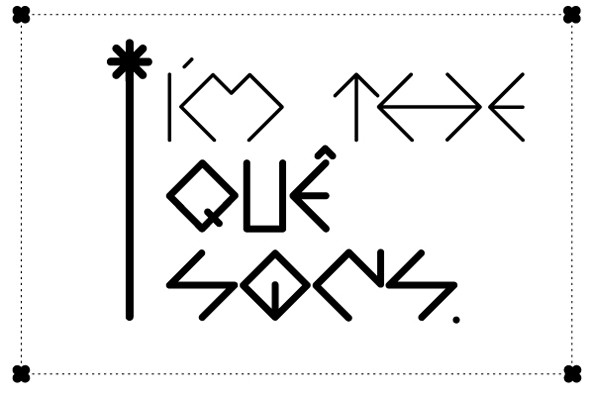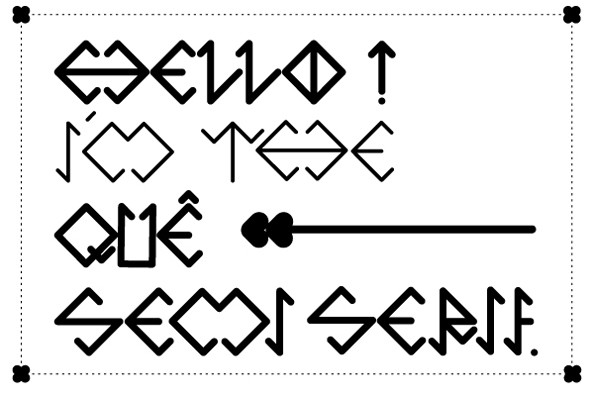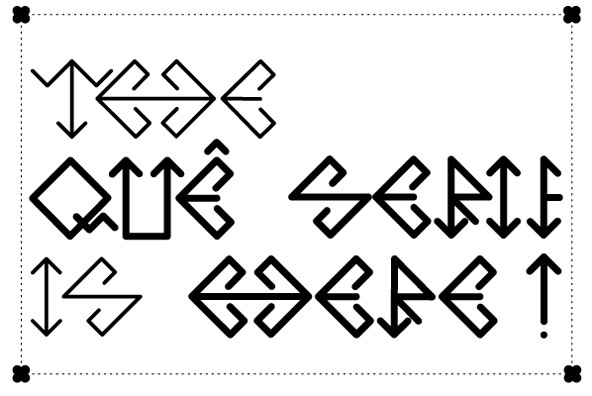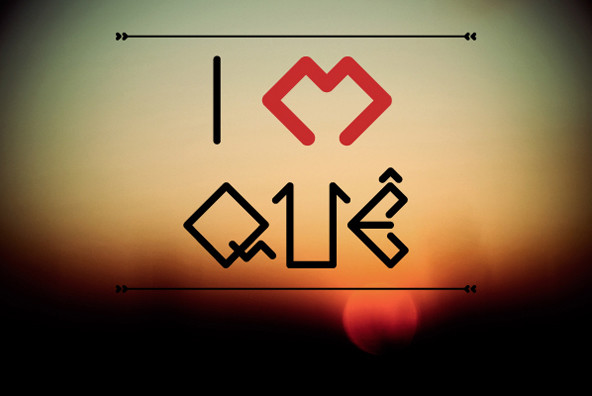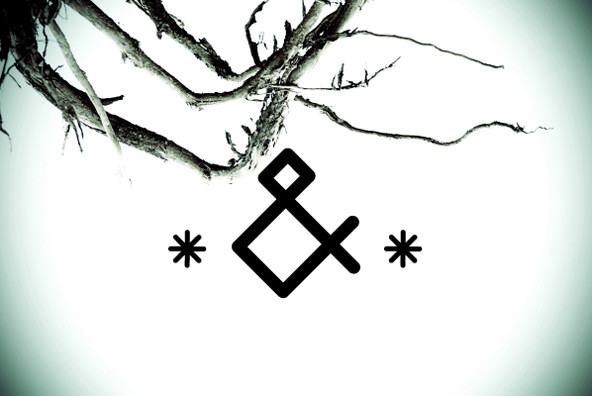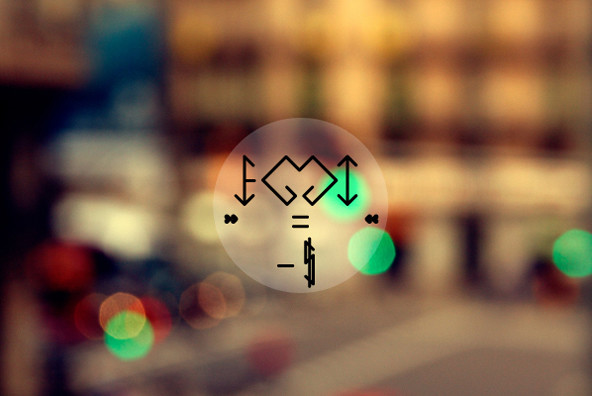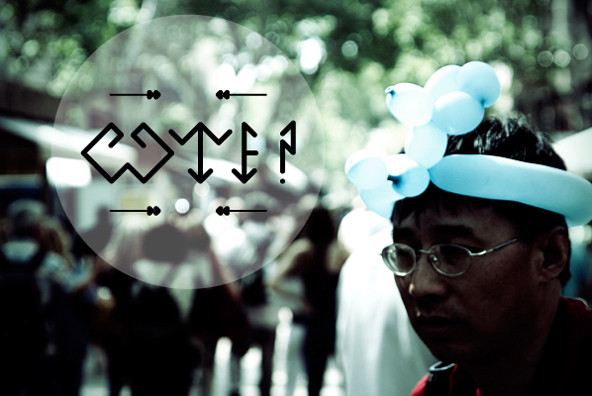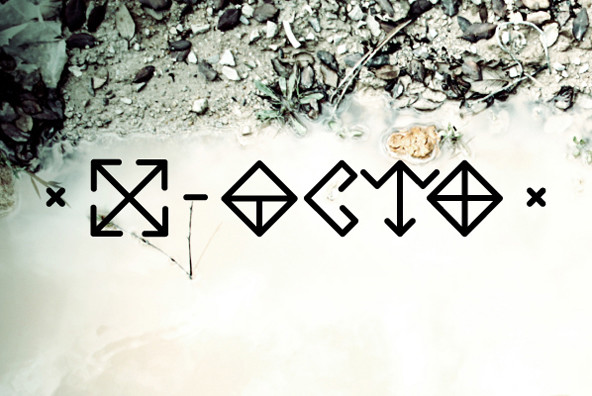
This font was made based on a 45 degree grid, and it makes that the lines of the font are just verticals, horizontals and diagonals. QUE have three weights, sans, semi serif and serif.
Foundry: Diogo Pisoeiro
This font was made based on a 45 degree grid, and it makes that the lines of the font are just verticals, horizontals and diagonals. QUE have three weights, sans, semi serif and serif.